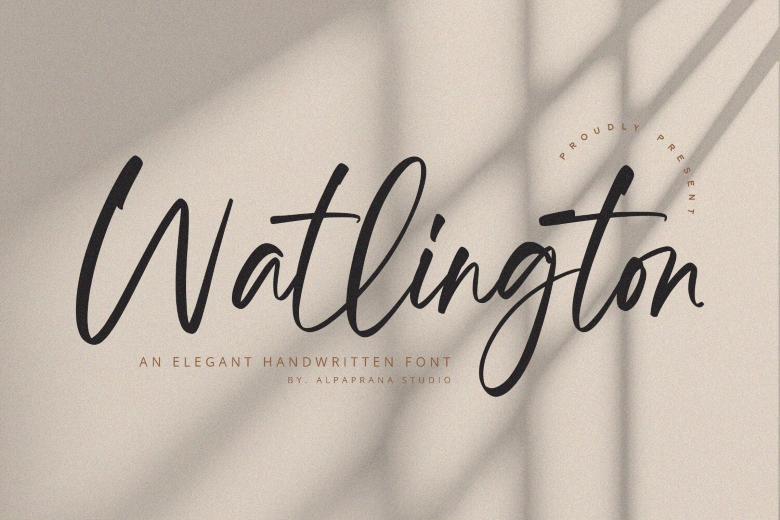
Watlington Font
Watlington is a handwritten font whose look is unique and at the same time, modern. Imagine the design used for Branding, Logo Design, Lettering, Logotype, Clothing, Posters, magazines, packaging, posters, shopping bags, t-shirts, book covers, photography, special events, and other worthwhile design related projects.
Watlington Handwritten Script Font